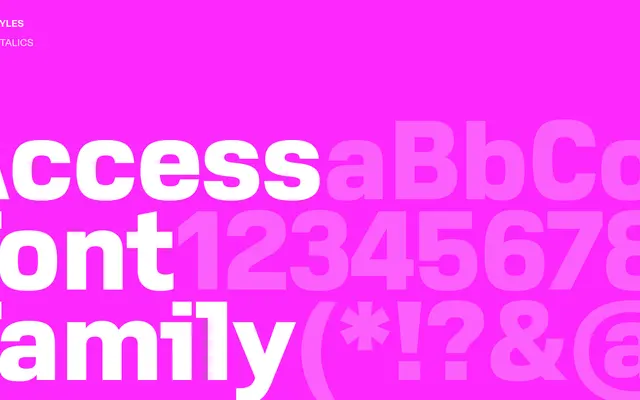
Access
A sans-serif from Playtype with minimal information available on the public page.
The page offers little beyond a short narrative fragment, leaving the typeface's full character, weight range and intended use largely undocumented. Based on Playtype's broader catalogue, Access likely sits within a clean grotesque or humanist tradition suited to editorial and identity work. More detail would be needed to assess it fully.
The brief page copy and name suggest a clean, functional sans-serif in the grotesque tradition, typical of Playtype's editorial and identity-focused output.